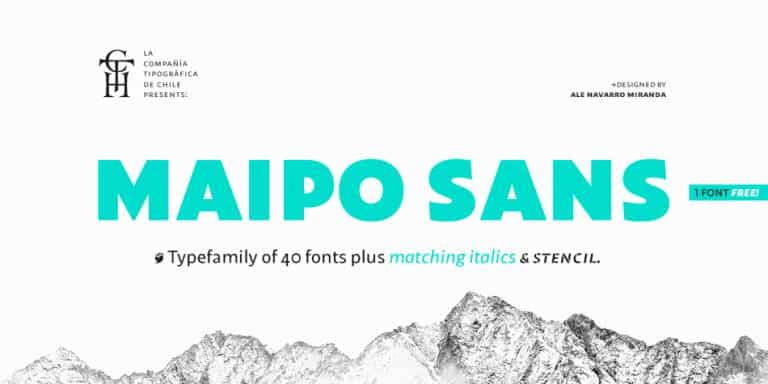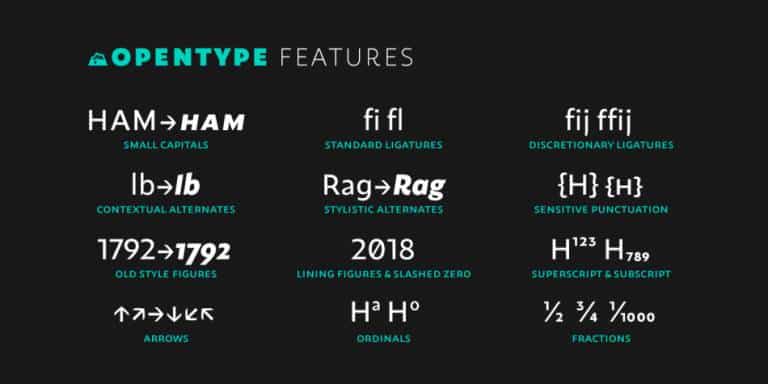
Meet Maipo Sans. Maipo Sans Font is the modern typeface from Ale Navarro, which was inspired by the mountain landscape of Cajón del Maipo, Chile. This typeface is a humanist sans-serif font with exciting stems scrambling from frames but doing it in an accompanied way that complements the orthography. The inspiration for the forms comes from the first sans serif European Humanist fonts of the twentieth century with a particular touch of reverse contrast. Maipo Sans мight be designed for long text blocks projects, and decent-looking ads. Maipo Sans TypeFan is also available.